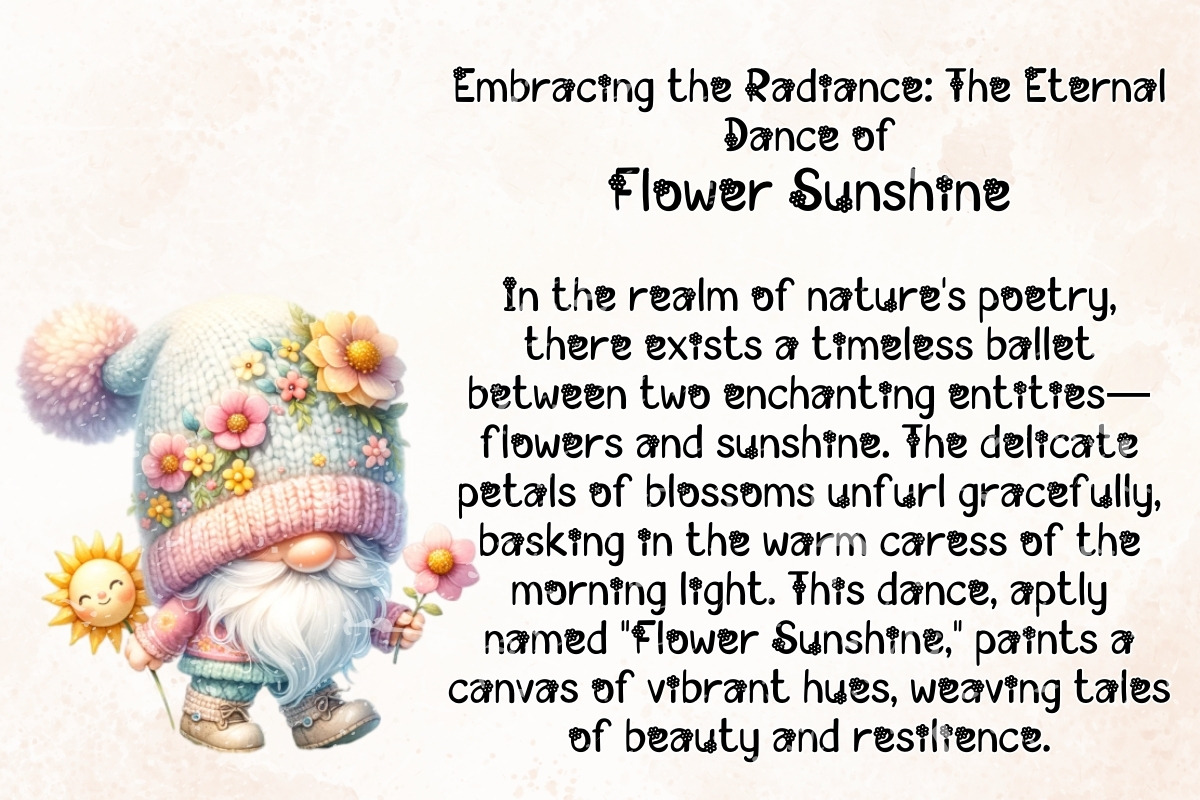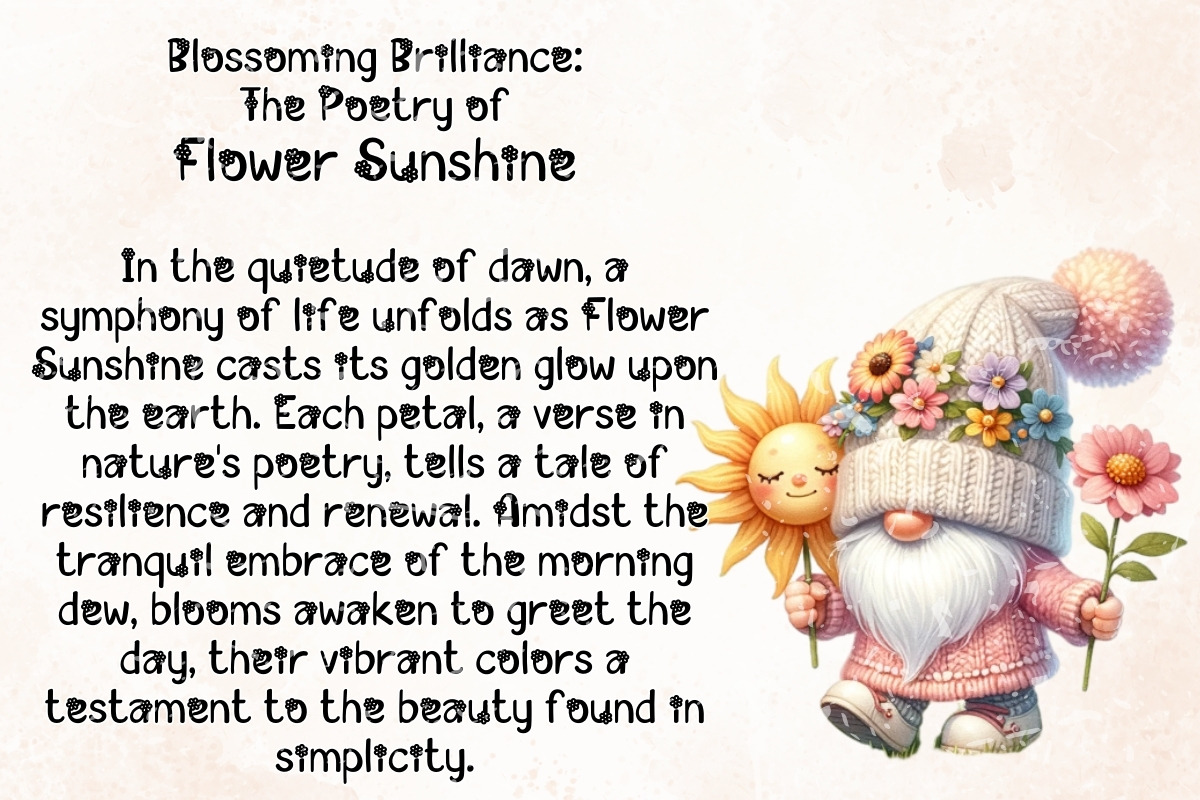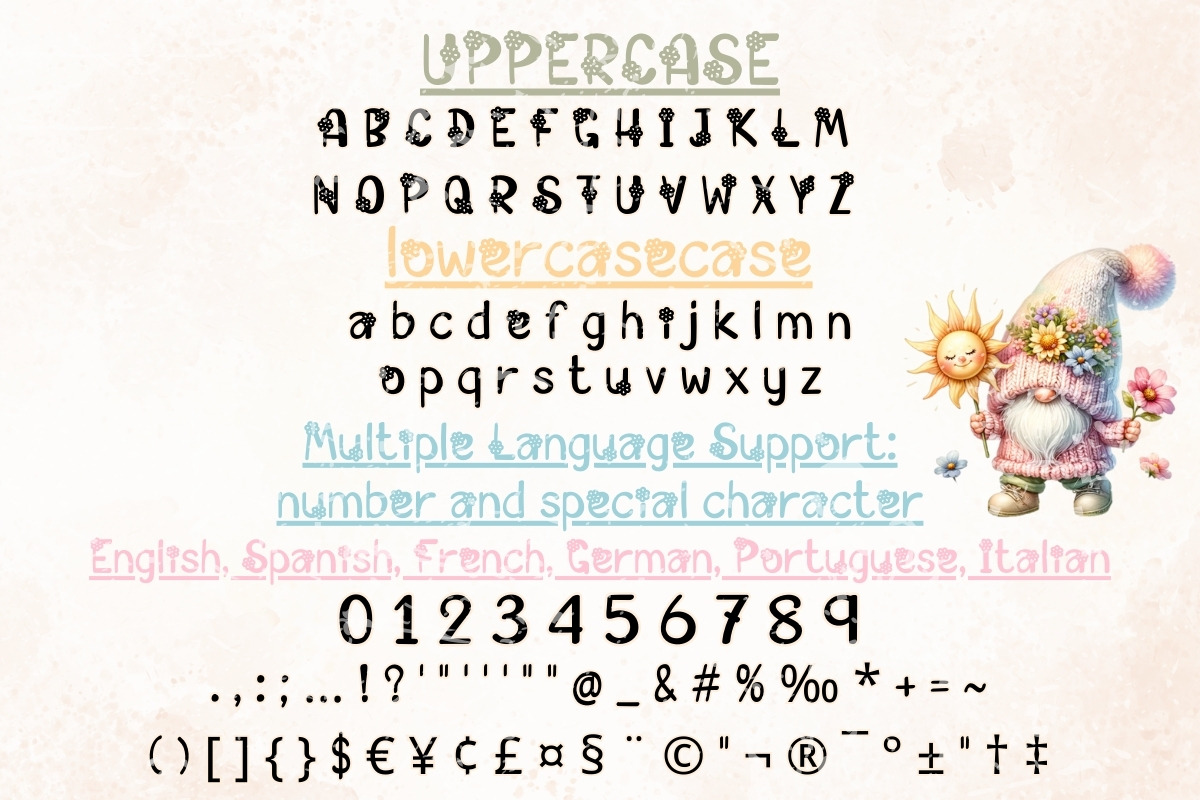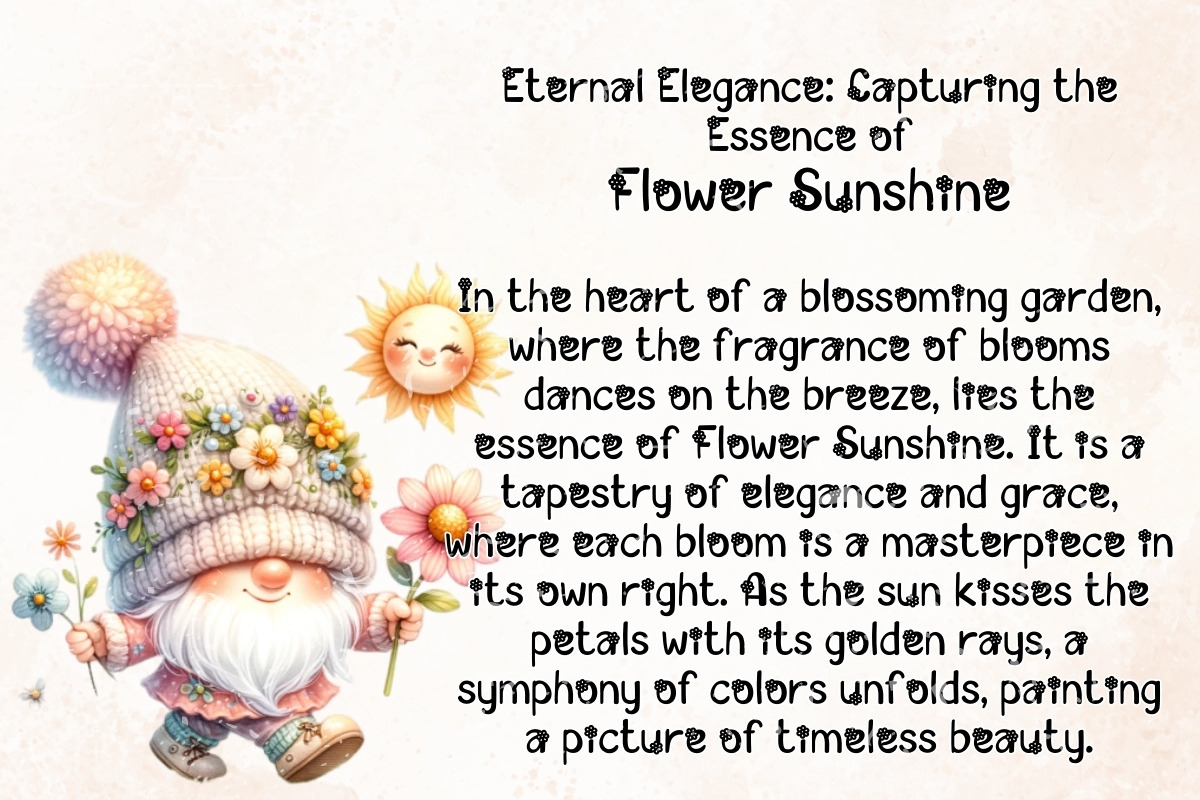
Flower Sunshine - Handwritten
Introducing "Flower Sunshine" - a charming handwritten font that blooms with beauty and grace. Its delicate strokes and flowing lines emulate the gentle sway of petals in the breeze, bringing a sense of whimsy and elegance to your designs. Whether used for invitations, greeting cards, or branding, this font adds a touch of floral charm to any project.